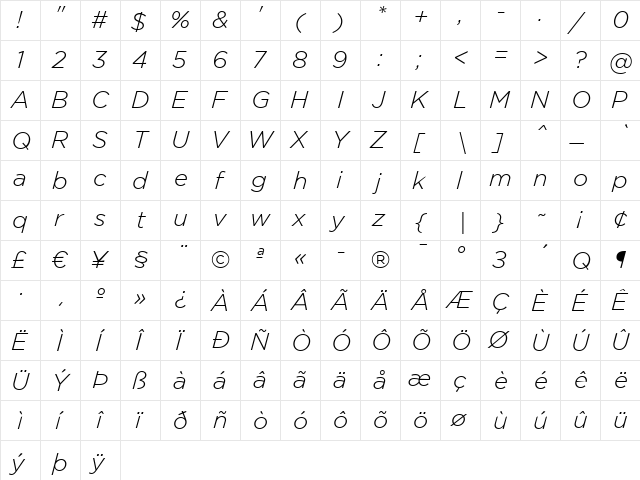
Gotham Light Italic
Design Context for Gotham Light Typeface
Gotham Light is a composed and adaptable typeface that performs quietly and consistently across a wide range of design contexts. The slanted form adds forward momentum and visual energy. The delicate stroke weight brings airiness and refinement to layouts.
Pro Tip: Try Gotham Light for annotation and caption copy alongside an upright companion — the contrast in angle creates a dynamic but ordered typographic system.